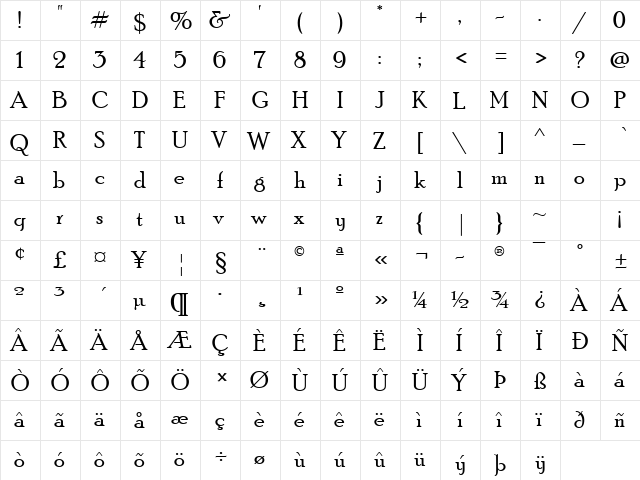
Poor Richard Regular
Design Context for Poor Richard Typeface
Poor Richard offers clean, dependable letterforms without strong stylistic allegiance, making it a practical choice for designers who need flexibility.